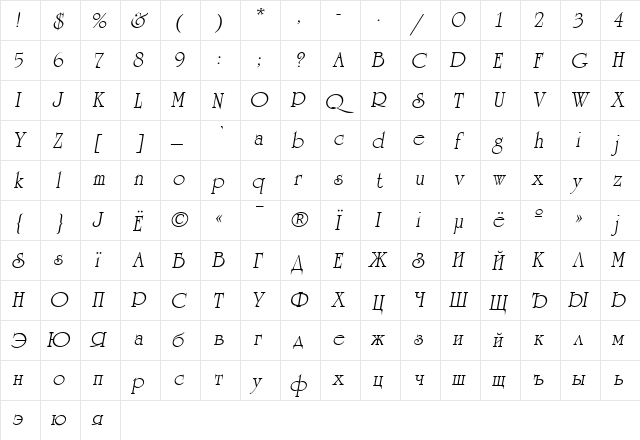
AGUniversityCyr Medium Font Preview
AGUniversityCyr Medium
AGUniversityCyr Medium Font Details
Design Context for AGUniversityCyr Typeface
AGUniversityCyr is a composed and adaptable typeface that performs quietly and consistently across a wide range of design contexts.
Pro Tip: Use AGUniversityCyr in both headline and body roles to test its range before committing to a single application.